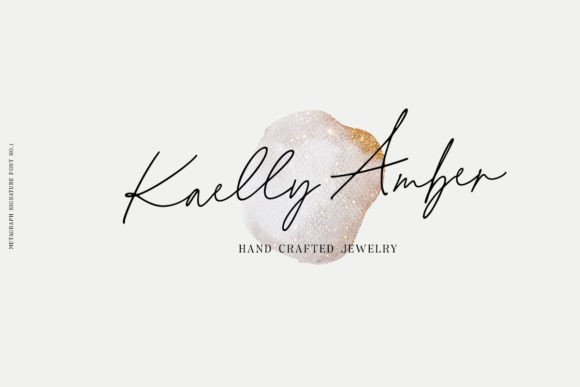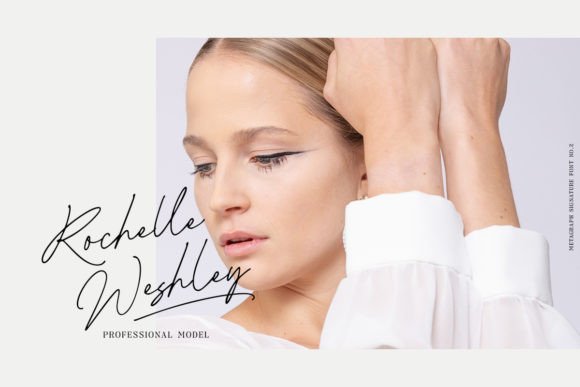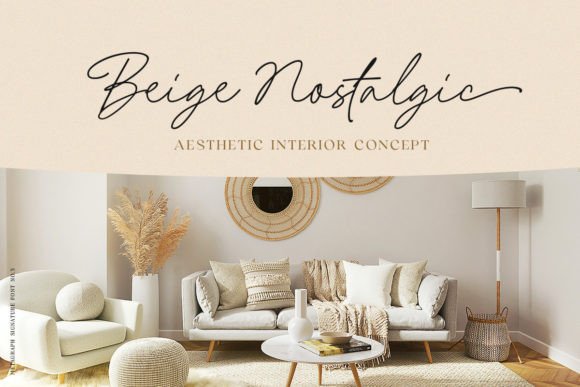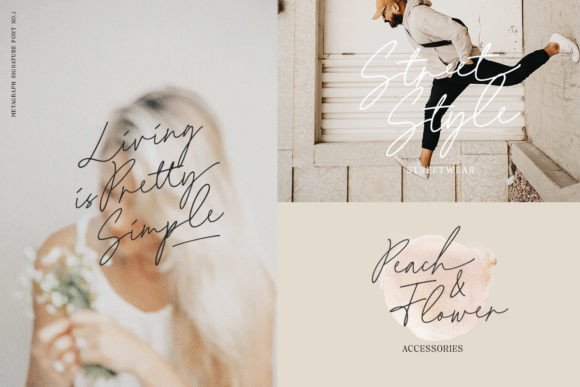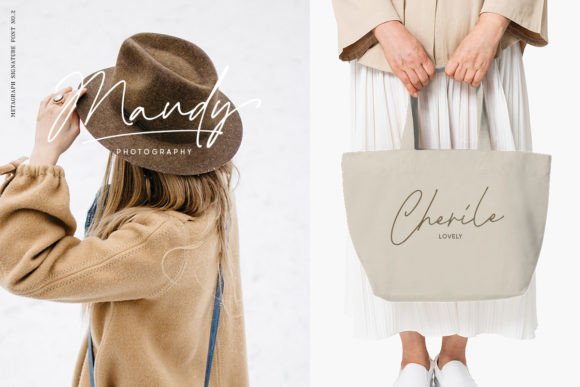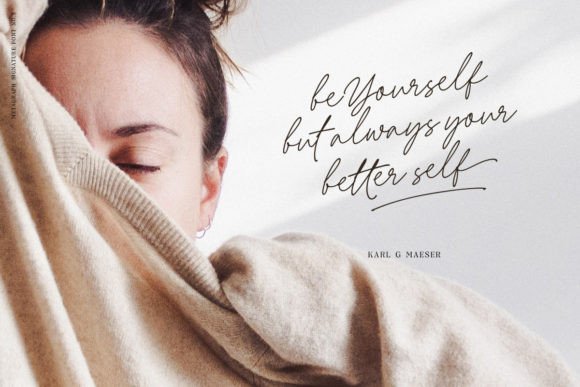
Introduction to Metagraph Font
Metagraph is a beautiful signature script font based on manual handwriting.
This typeface is perfect for invitations, labels, logos, magazines, books, greeting/wedding cards, packaging, fashion, make-up, stationery, novels, labels, or any type of advertising purpose .
Key Features of Metagraph Font
Why Choose Metagraph Font?
Metagraph Font offers exceptional quality and versatility, making it a valuable addition to your design toolkit. Whether you’re creating for personal projects or commercial use, Metagraph Font delivers professional results.